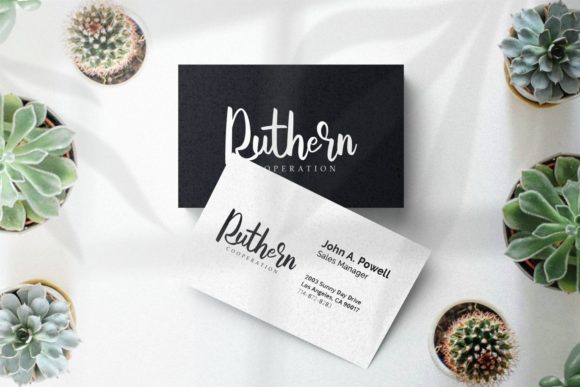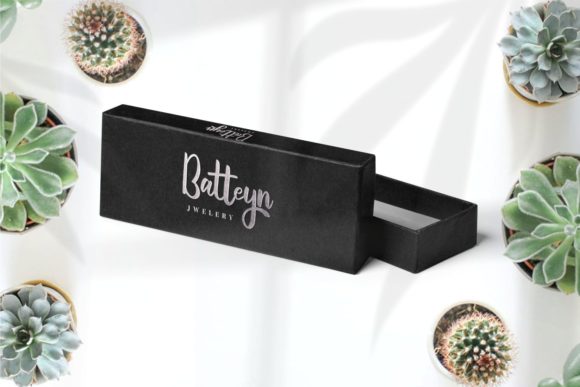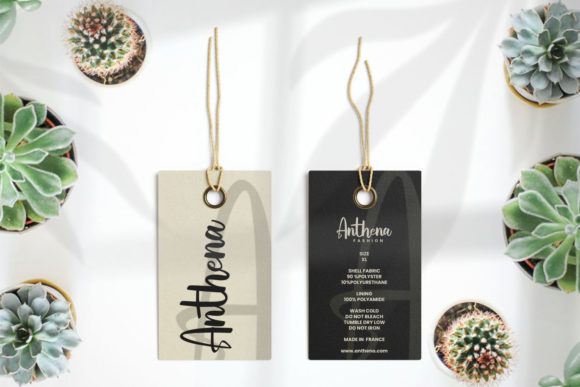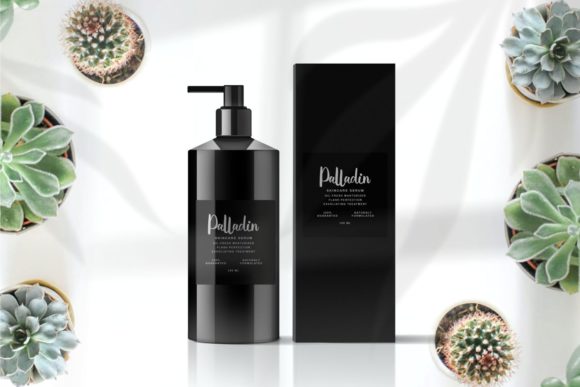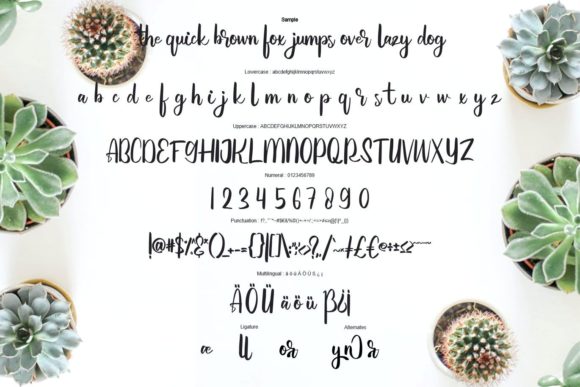
Introduction to Parllor Font
Have you ever stared at a blank page, waiting for inspiration to strike? It’s that moment when the perfect font can make all the difference in bringing your creative project to life. For designers, finding the right font can be a game-changer. And, if you’re looking for a high-quality, elegant handwritten font that exudes personality, you’re in luck.
Meet the Parllor Font, a beautiful and unique design resource that’s perfect for adding a touch of sophistication to your work. Whether you’re creating a wedding invitation, a thank you card, or a logo, this font is sure to impress. With its free download option and transparent background, you can easily incorporate it into your design without any hassle.
As a valuable asset for designers, the Parllor Font is a must-have in your design arsenal. Its versatility and elegance make it an ideal choice for a wide range of creative projects, from greeting cards to branding materials. In this article, we’ll dive deeper into the world of Parllor Font and explore its many benefits.
Key Features of Parllor Font
- High-quality design for creative projects: Parllor Font is perfect for designers who want to add a touch of elegance to their work.
- High-resolution design: The font is designed at a high resolution (300 DPI), ensuring that it looks crisp and clear in various sizes.
- Unique characteristics: Parllor Font features a unique blend of modern and vintage elements, making it perfect for a wide range of creative projects.
Honest Review: Parllor Font
As a designer, I’m always on the lookout for high-quality fonts that can elevate my creative projects. I recently stumbled upon Parllor Font, a free download that’s been making waves in the design community.
What works well about Parllor Font is its versatility. It’s available in a range of weights and styles, making it suitable for a variety of design projects, from logos to editorial content. The font is also well-suited for use with a transparent background, allowing you to achieve a clean and modern look.
Here are some of the key features that make Parllor Font stand out:
- High-quality design with precise details
- Available in multiple weights and styles
- Perfect for use with transparent backgrounds
While Parllor Font is an excellent addition to any designer’s toolkit, it’s not without its limitations. ⚠️ One potential drawback is that the font may not be suitable for use in very small sizes, as the details can become difficult to read.
Overall, I’m impressed with Parllor Font. It’s a solid choice for any designer working on a creative project and a great example of a well-designed, free font that’s worth exploring. ✨
Parllor Font is perfect for creative projects that require a high-quality, unique font. It’s ideal for designing logos, business cards, and other marketing materials that require a touch of elegance.
For the best results, use Parllor Font on a transparent background to create a clean and modern look. You can also experiment with different font sizes and colors to create a unique design.